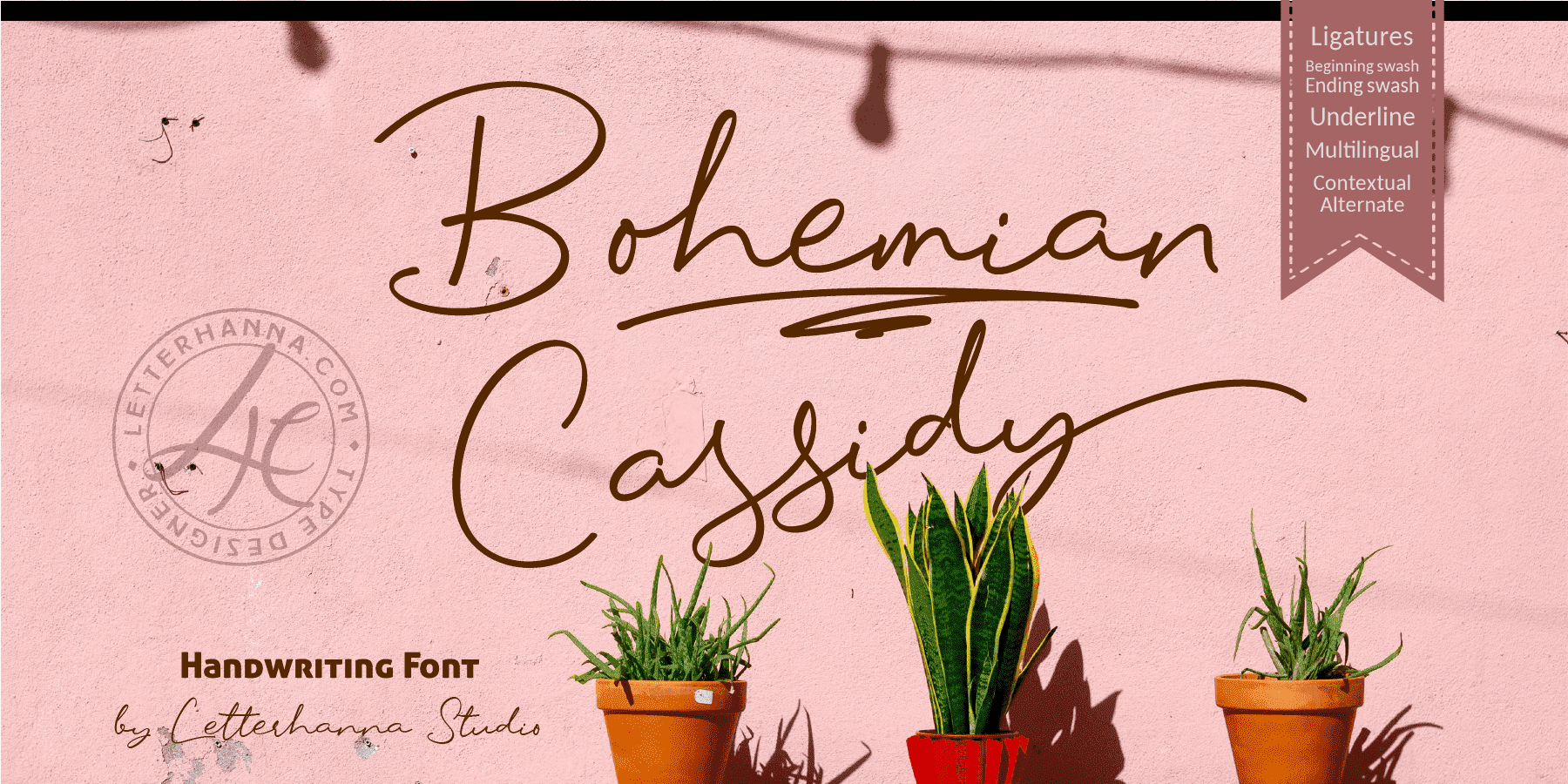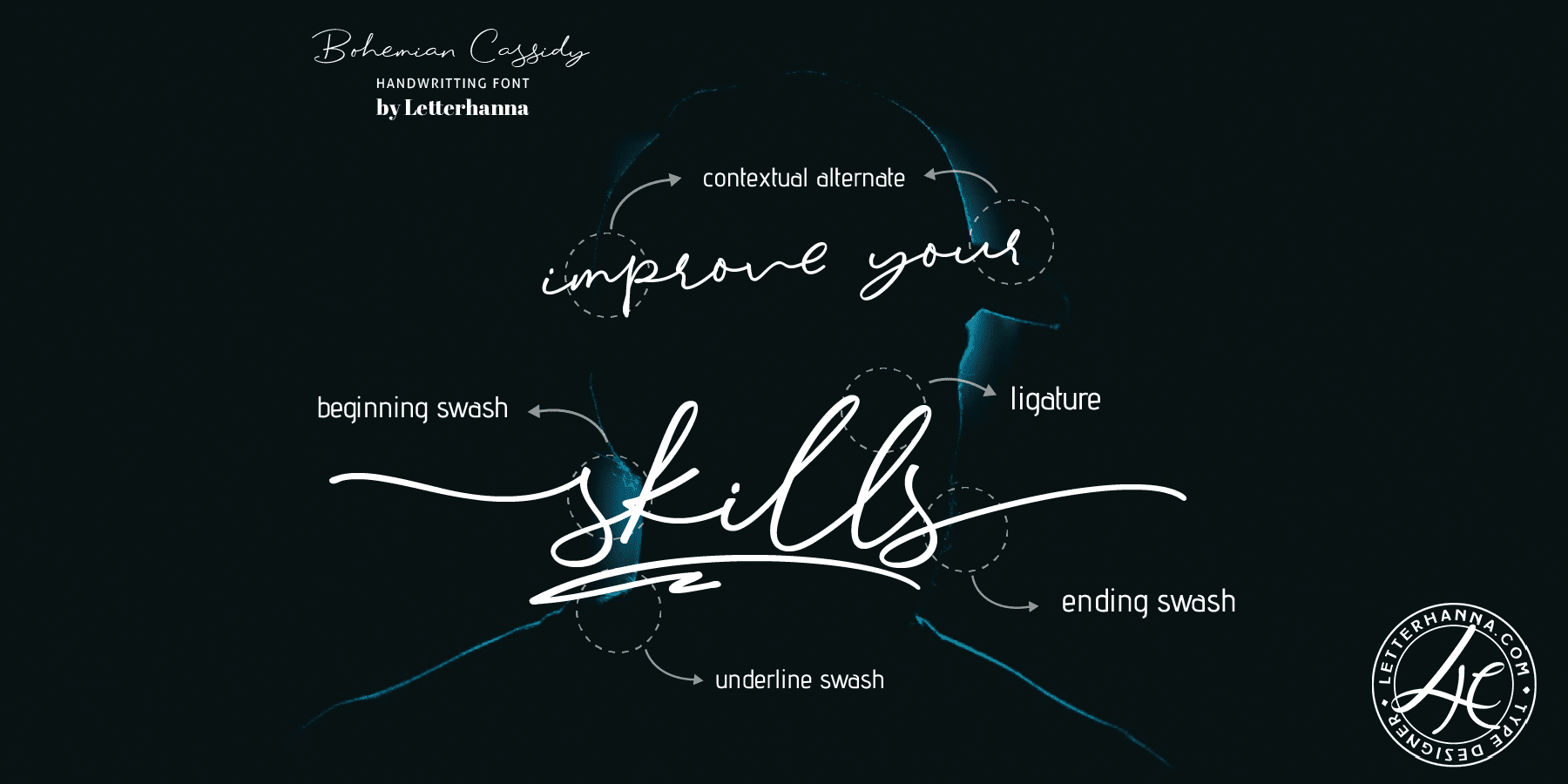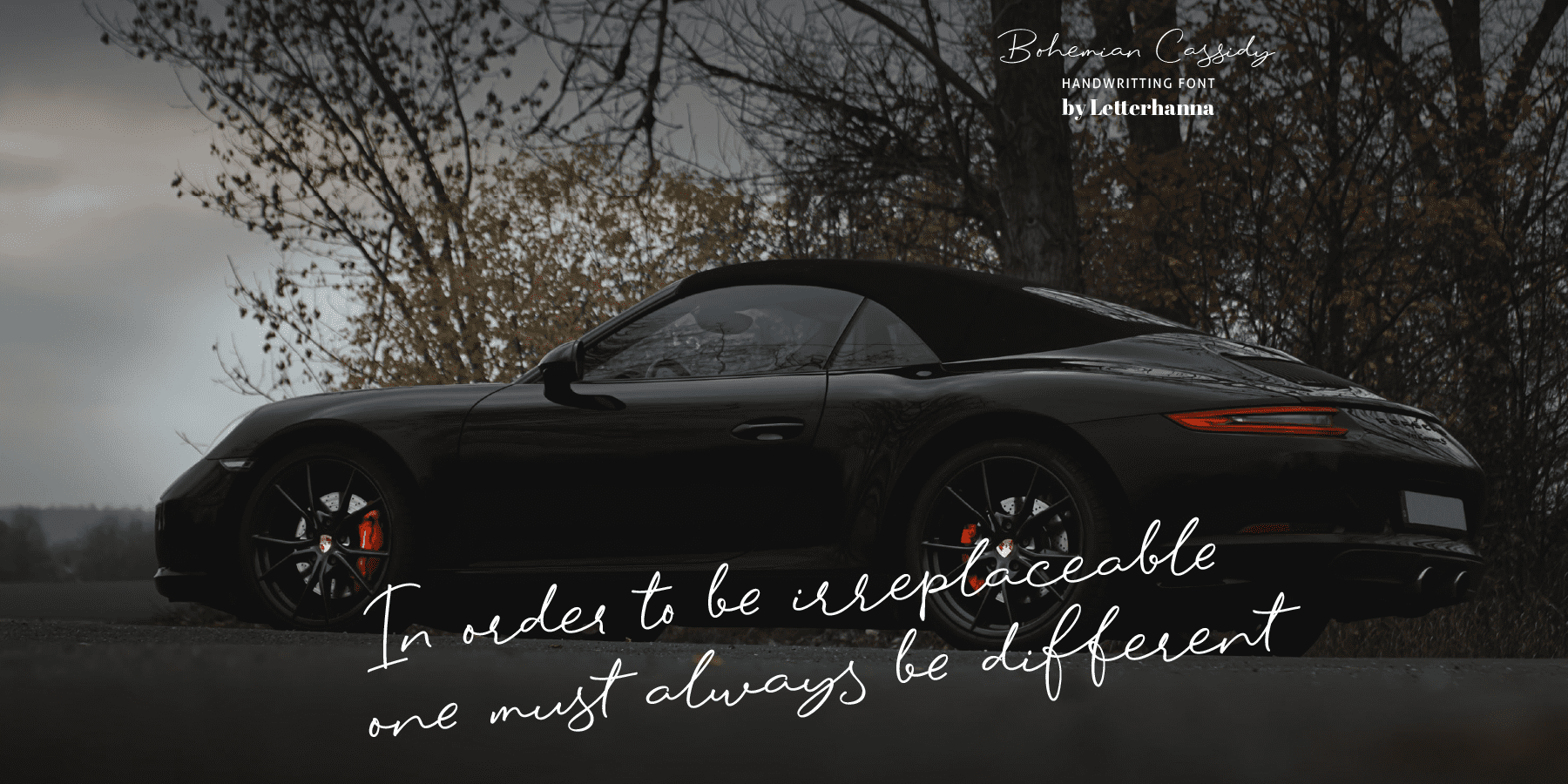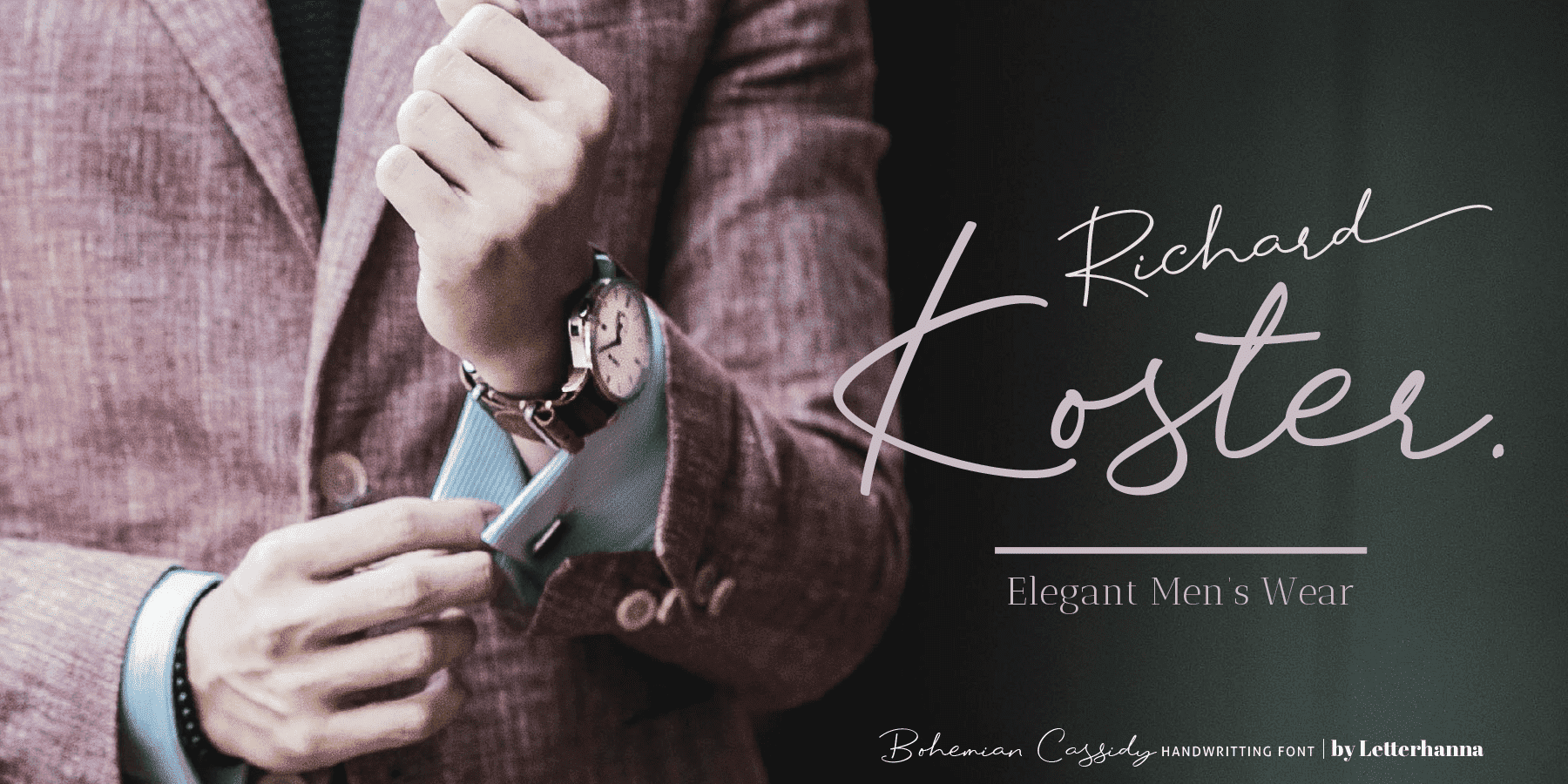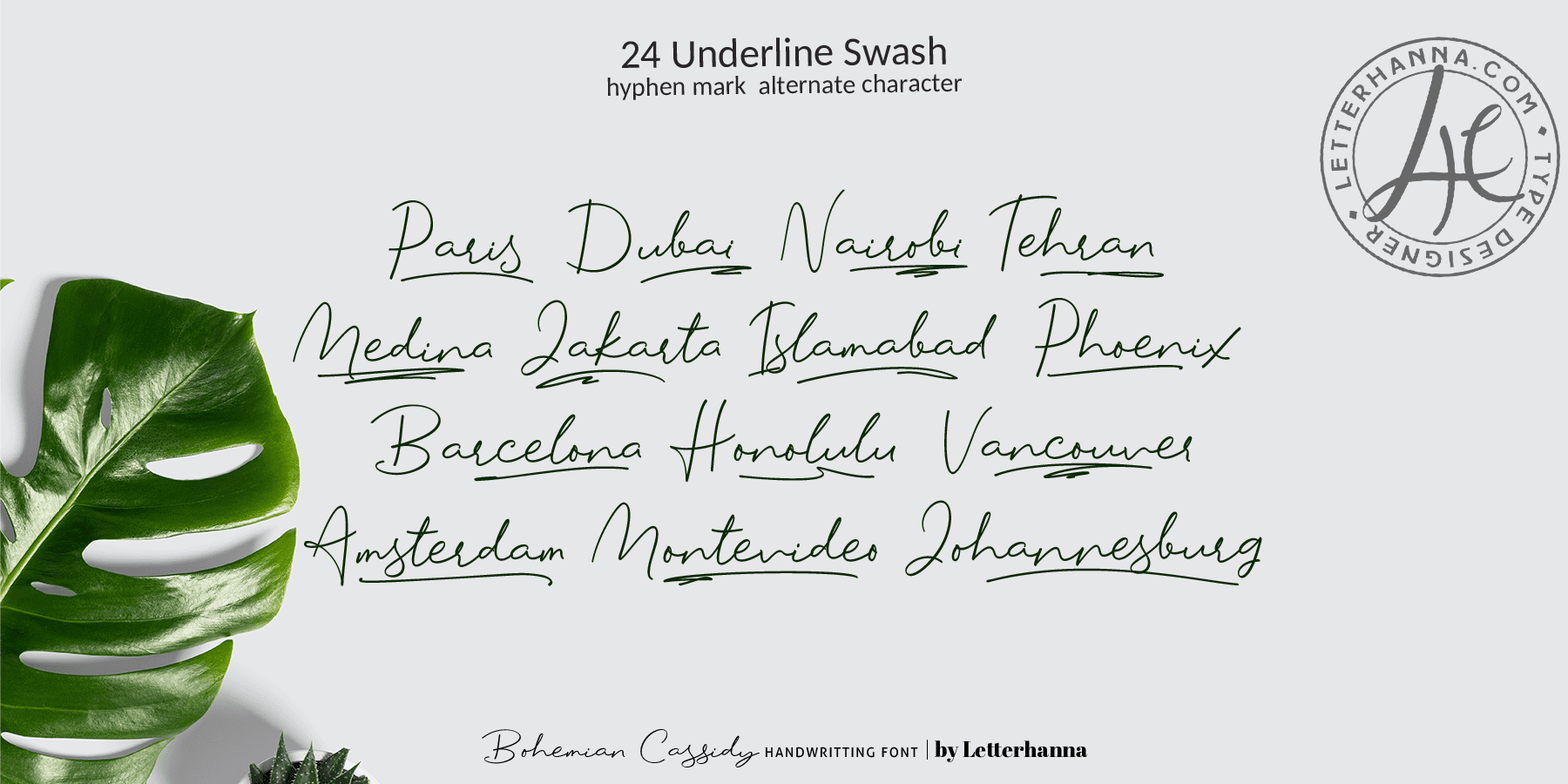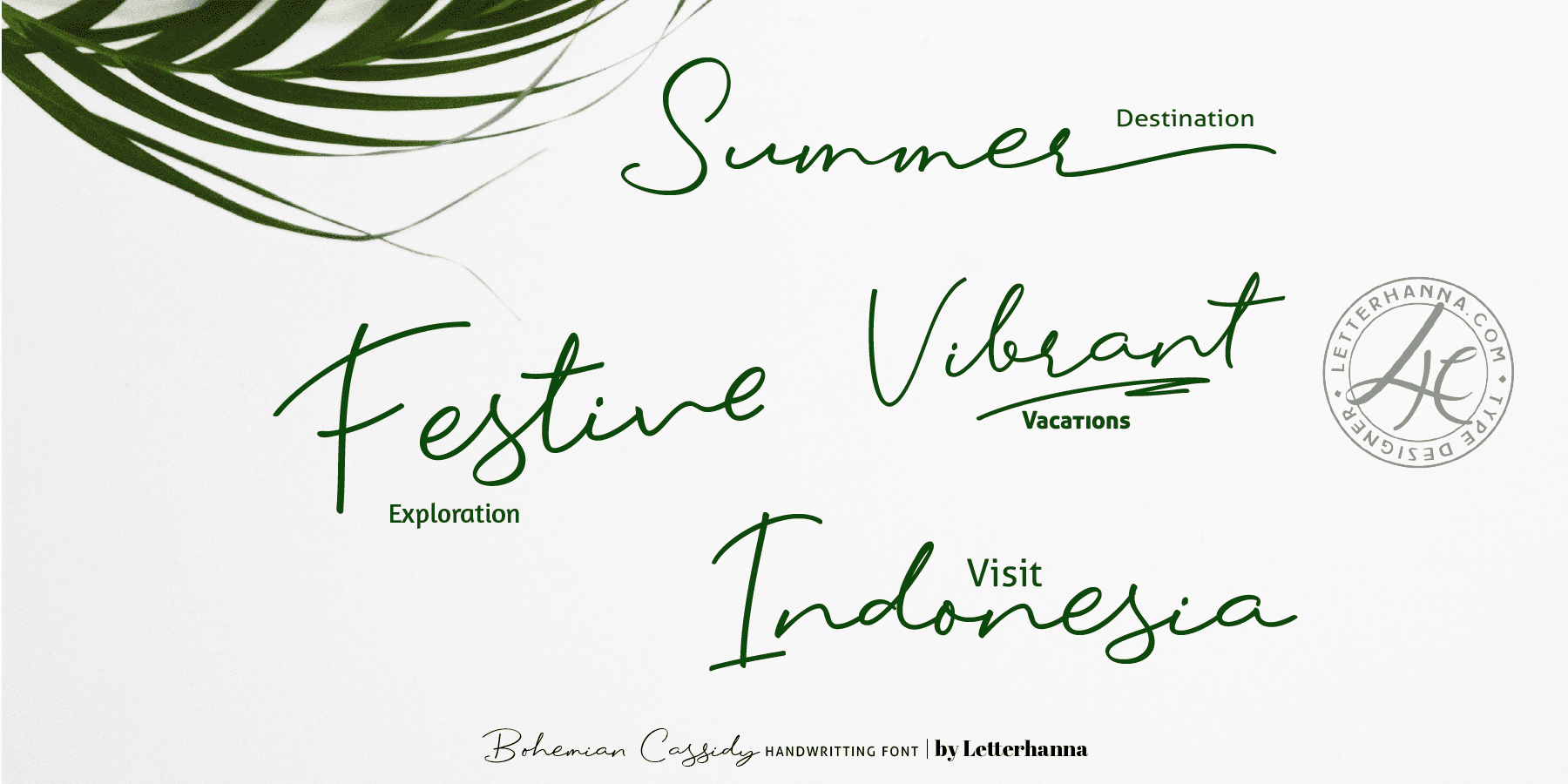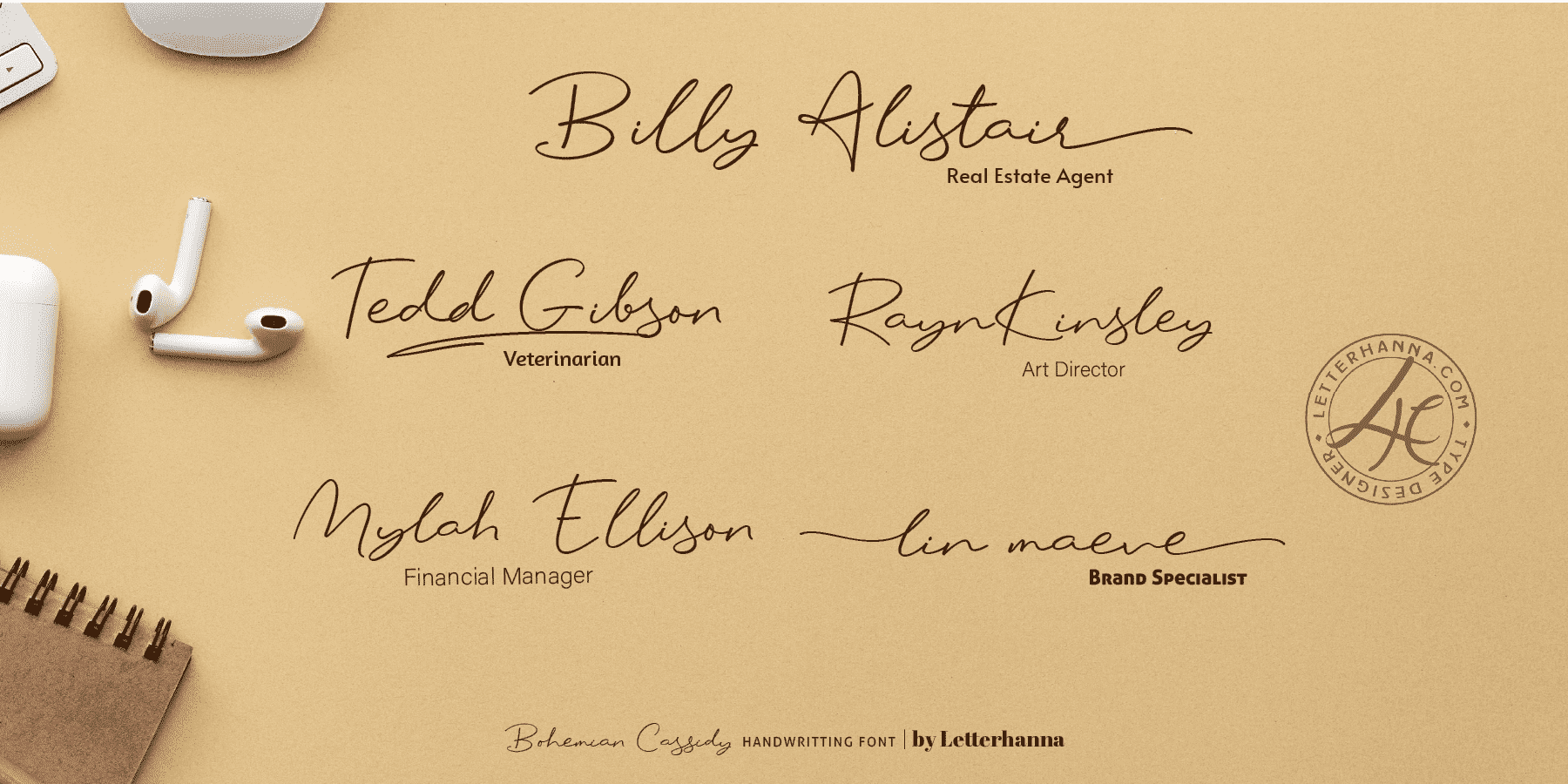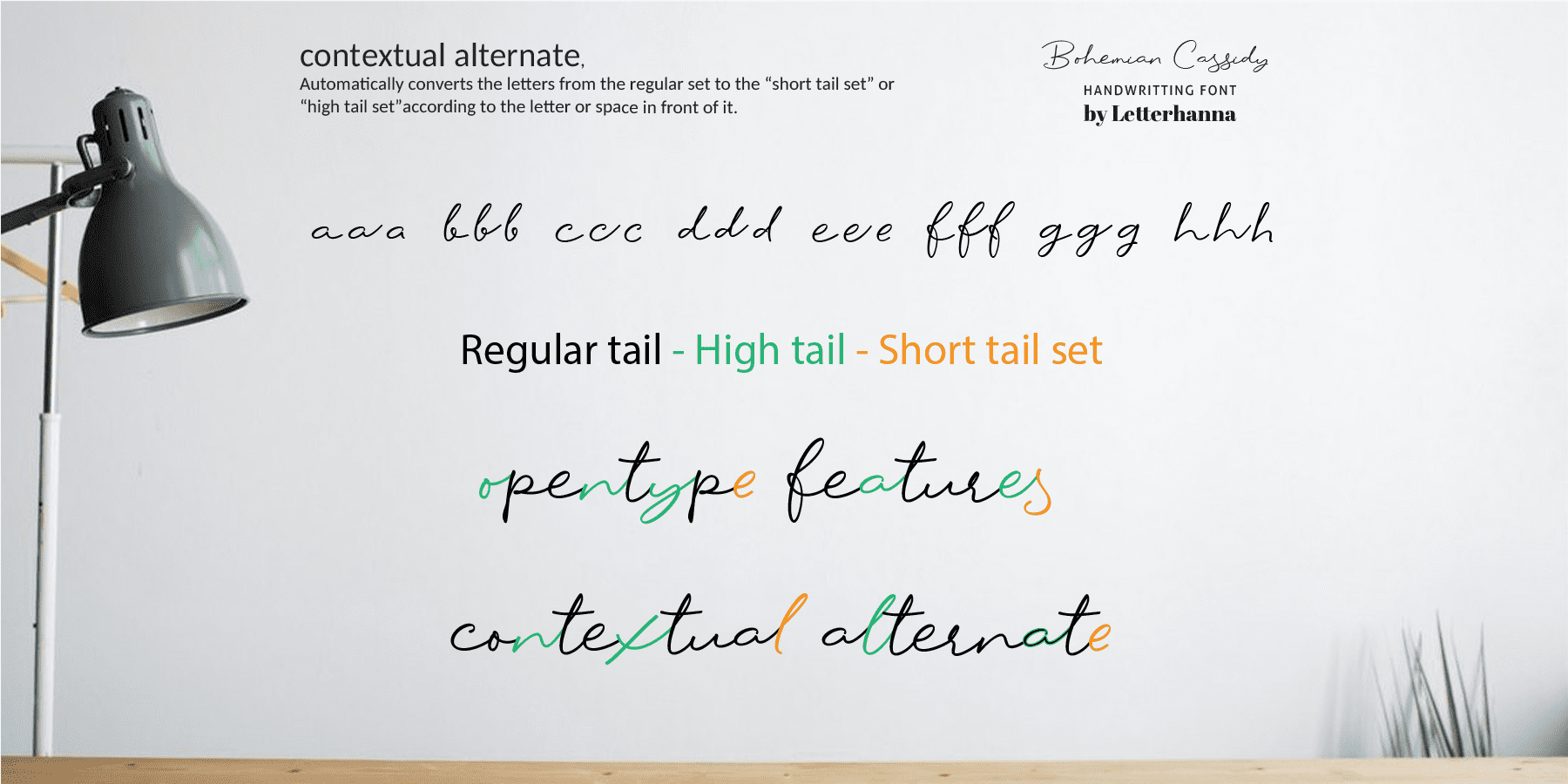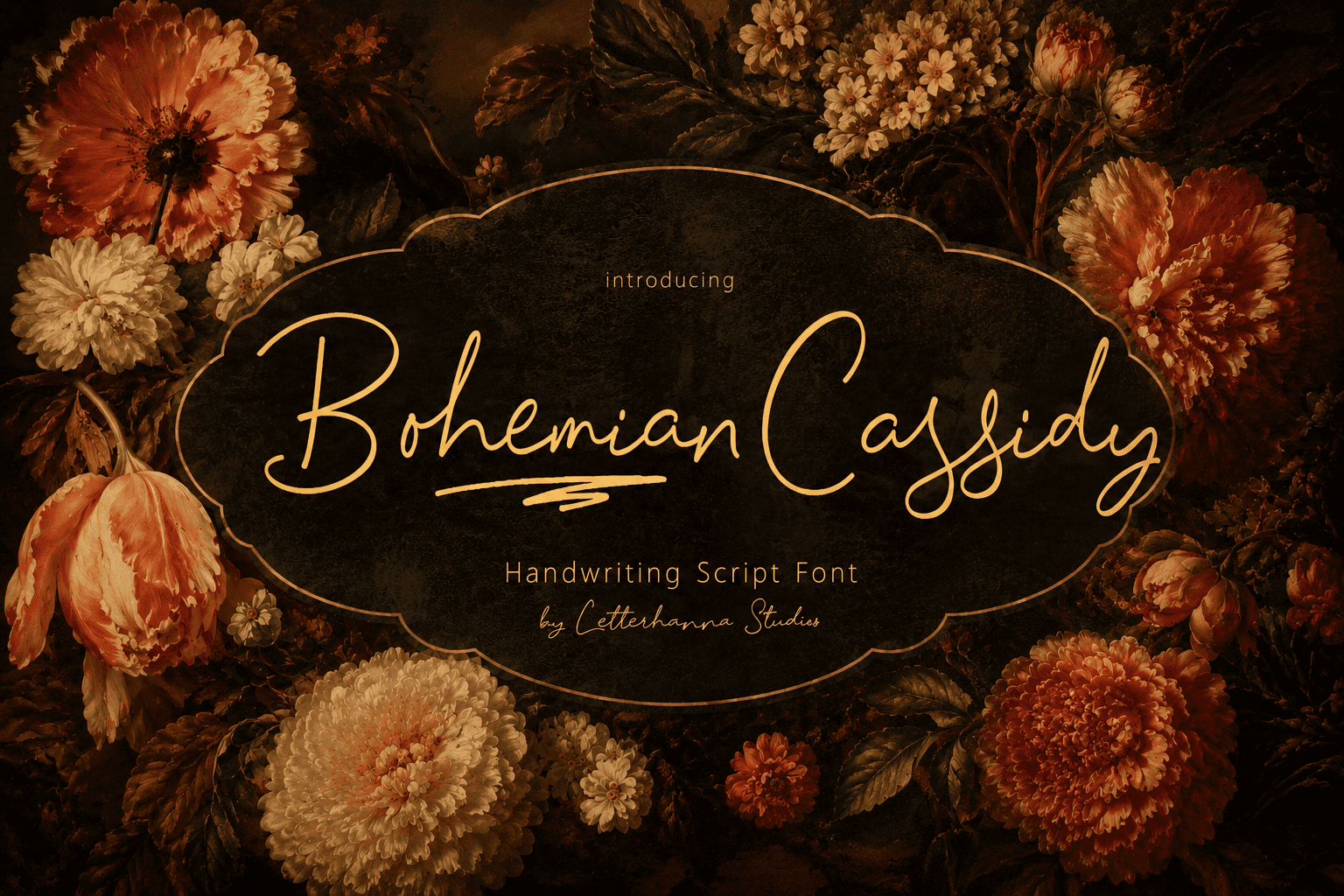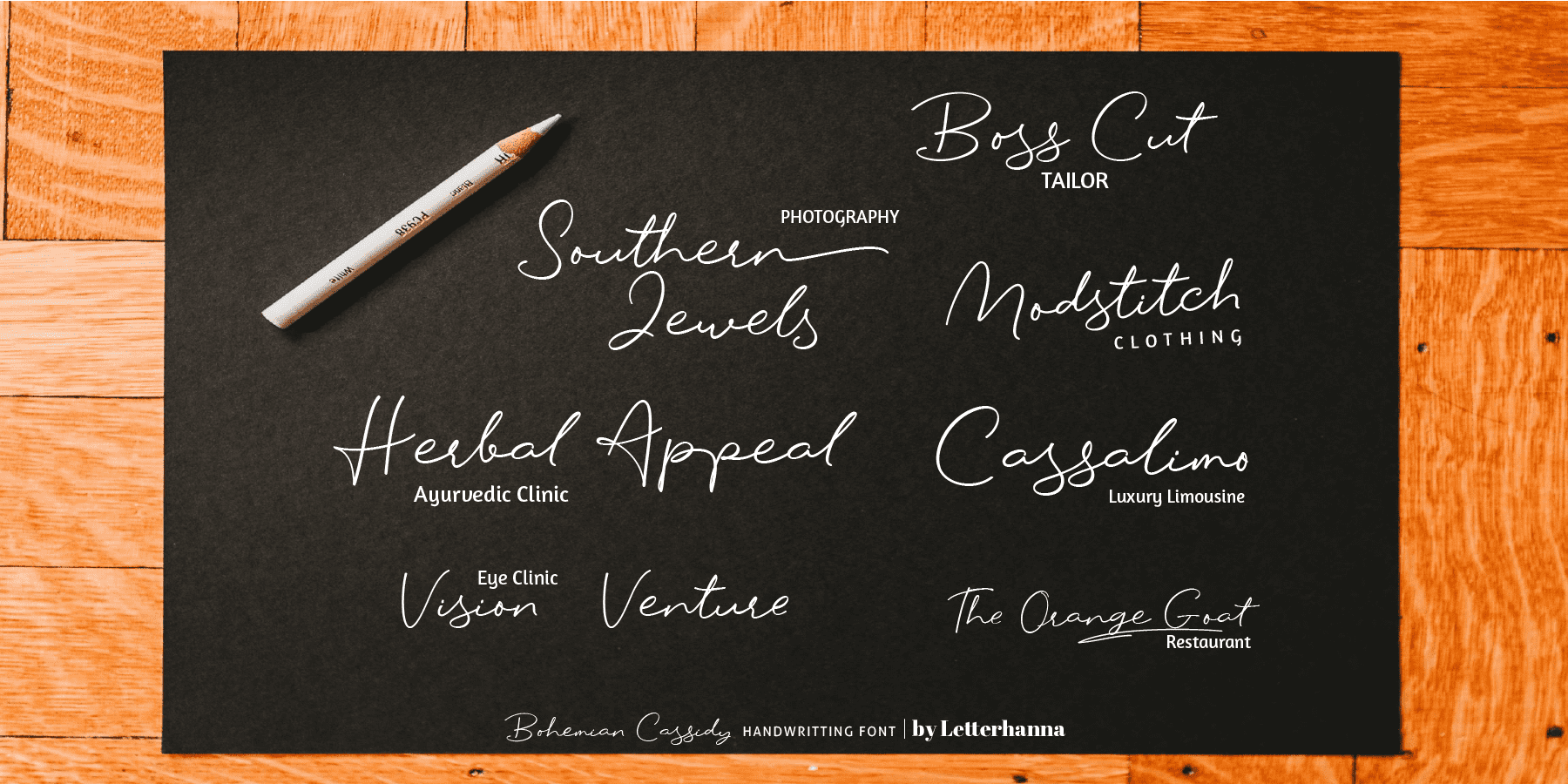
Bohemian Cassidy is a lovely handwriting script font. It’s perfect for signatures, logo type, weddings, posters, brochure or any display use.
Bohemian Cassidy is perfect to get a more charismatic impression or give a unique touch to your projects and branding, greeting cards, wedding, banner, name card, lettering, fonts pairing, etc.
Try mixing your design with this font. Don’t hesitate to pair it with serif or serif in your work idea. Find interesting layouts to complement your project.
Bohemian Cassidy contains a full set of lower & uppercase letters, a large range of punctuation, numerals, and multilingual support.
Bohemian Cassidy was created to look as close to a natural handwritten script as possible by including 2 full set of lowercase tail alternates. There are also natural-looking ligatures and 24 underline swooshes included.
FEATURES
– Uppercase and Lowercase letters
– Numbering and Punctuations
– Multilingual Support
– Ligatures
– Beginning and ending swashes
– Underline swashes
– Contextual alternate